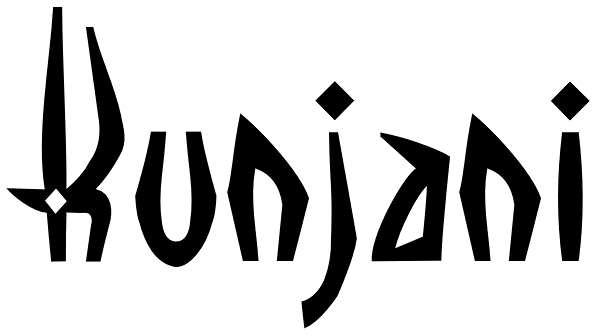
Kunjani
Kunjani, (the Zulu word for "How are you?") is a feisty, contemporary "African Renaissance" font, vibrant and richly decorative, embodying the spirit of modern Africa. The characters are full of movement and excitement, combining a hand-carved look...